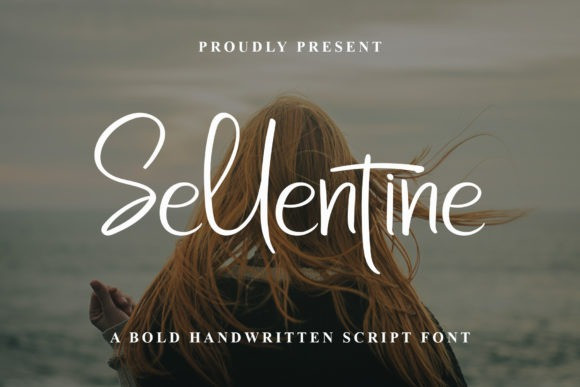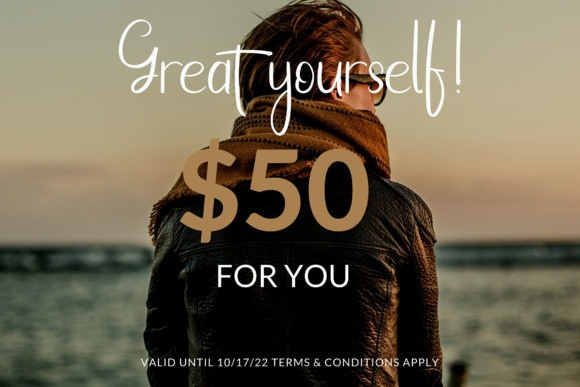
Sellentine Font
Sellentine is a beautiful and delicate handwritten font with a unique feel and a stunning impact. The letters are created to appear not too overly refined , maintaining some inky imperfections in the edge detail , adding a more realistic hand-inked look. Perfect for adding a elegant and unique touch to your branding, lettering projects, thank you cards, quotes, greeting cards, business cards, and every other.